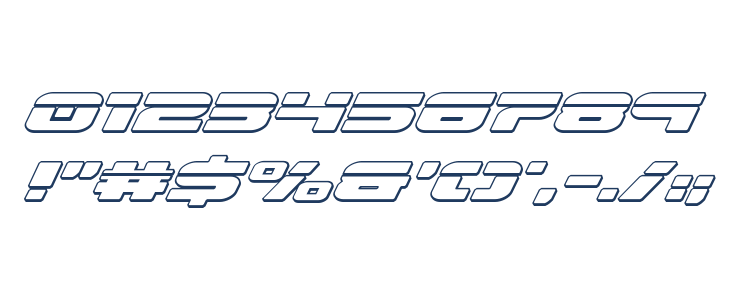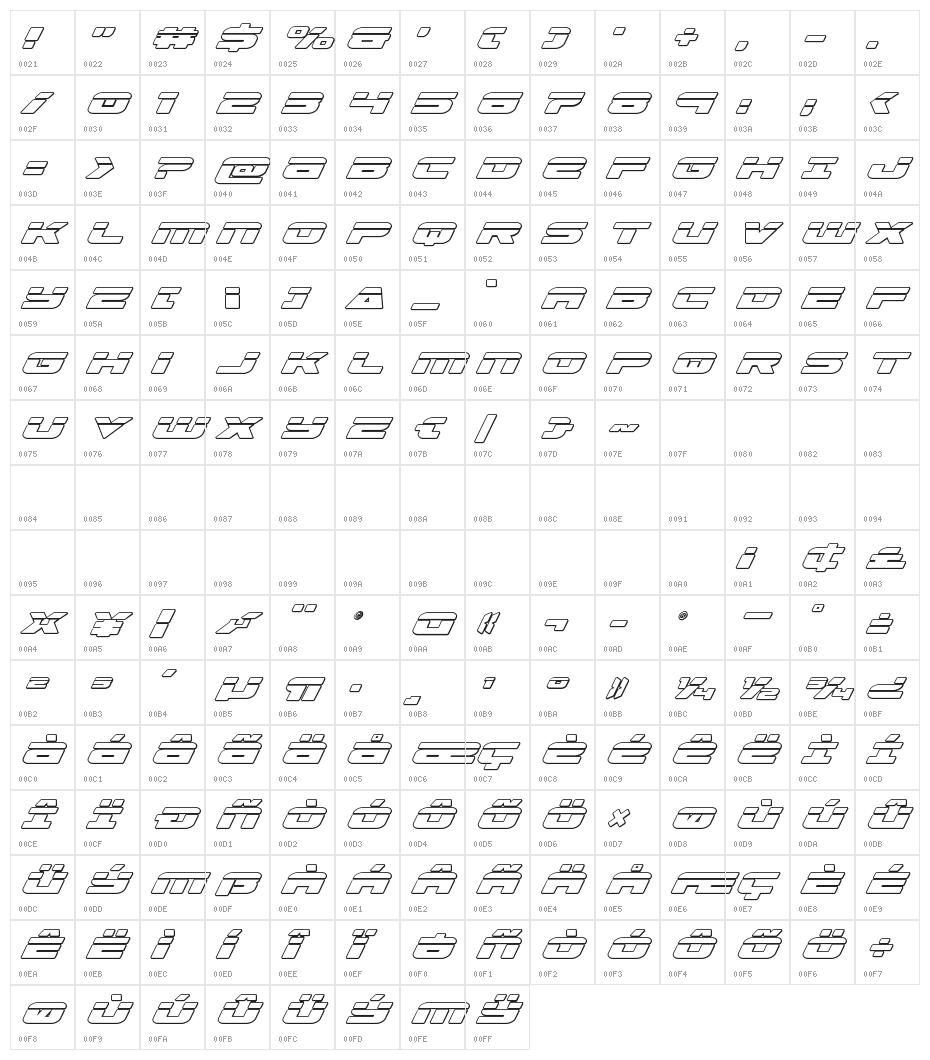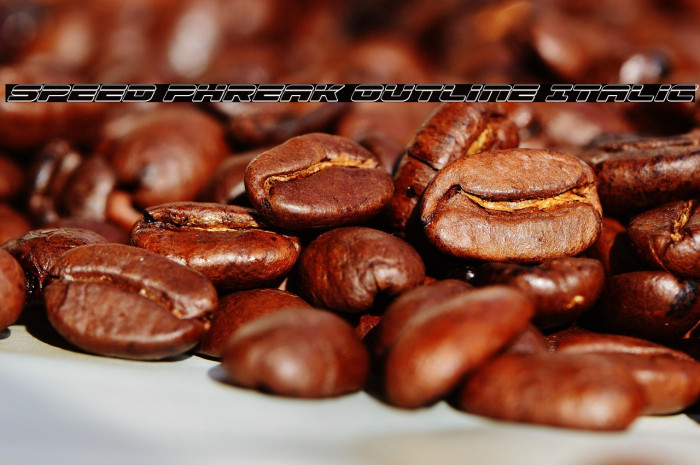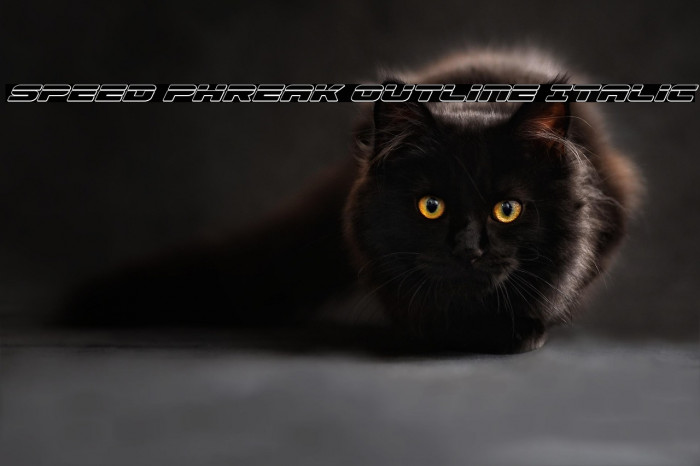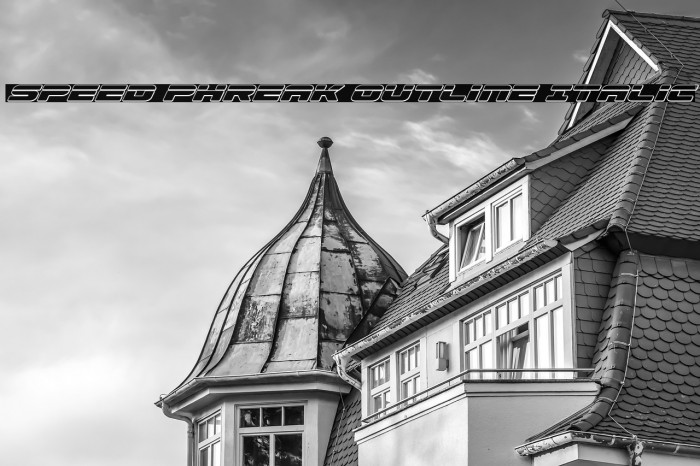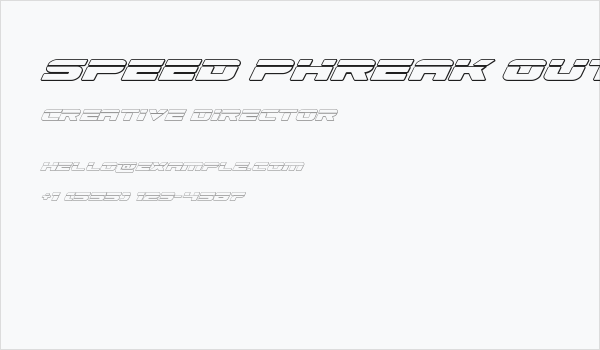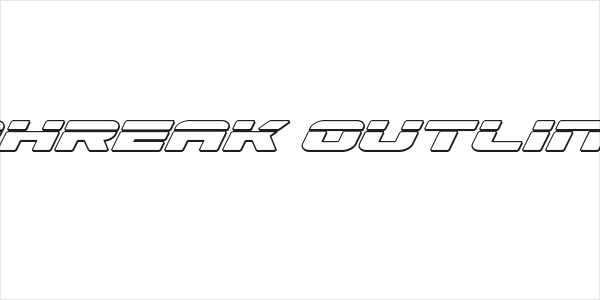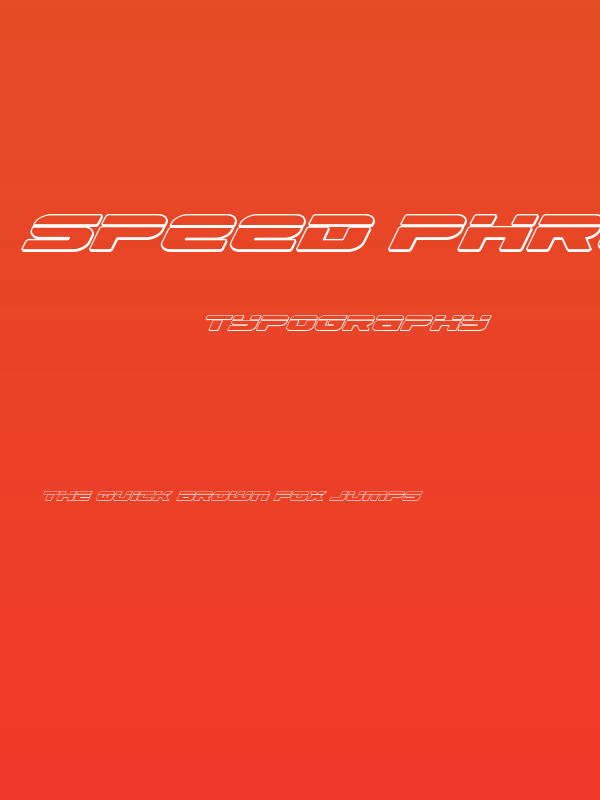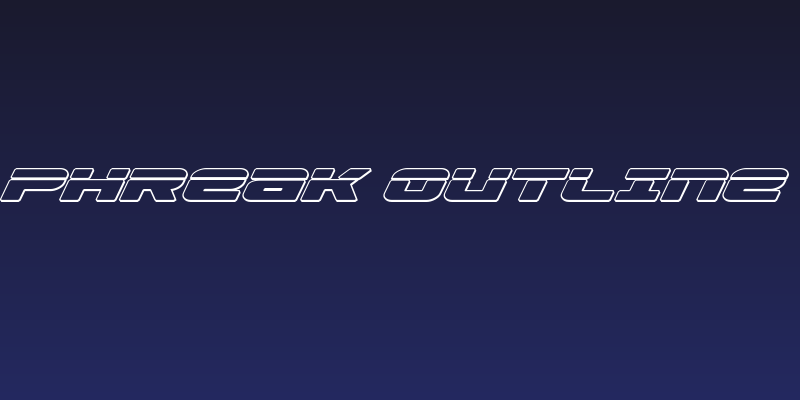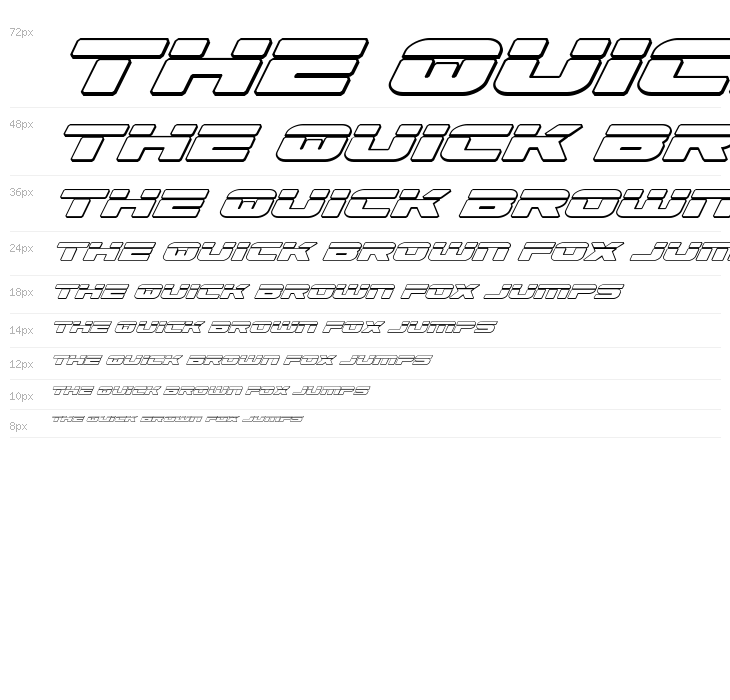
Speed Phreak Outline Italic Font
Speed Phreak Outline Italic Description
This font features a sleek, futuristic outline design with an italic slant, giving it a dynamic and fast-paced appearance. The characters are bold and geometric, with a consistent stroke width that maintains clarity and readability. The outline style adds a unique dimension, making it suitable for projects that require a modern and edgy look. The italic angle enhances the sense of motion, making it ideal for themes related to speed, technology, or innovation. The font includes a full set of uppercase and lowercase letters, numbers, and a variety of special characters, ensuring versatility in design applications.
| Proposed Projects | Ideal for tech-related branding, sports team logos, video game titles, and futuristic-themed posters. |